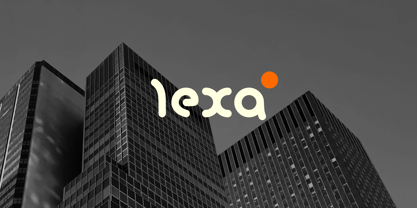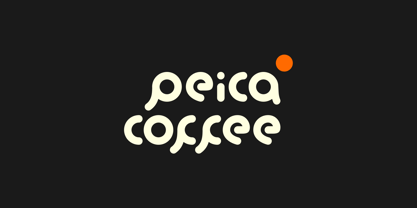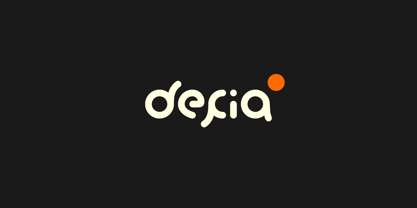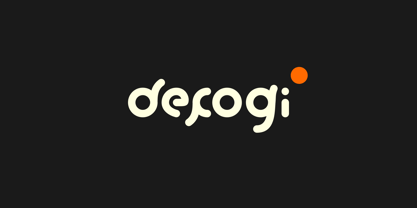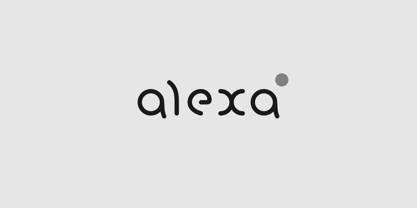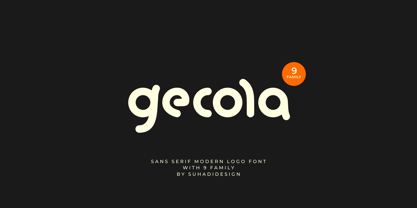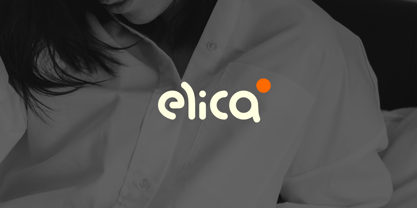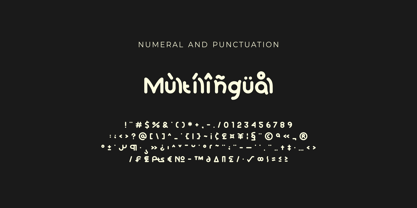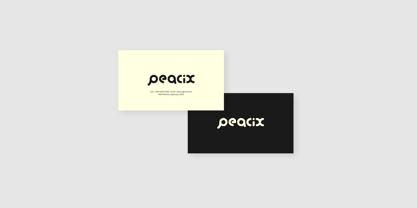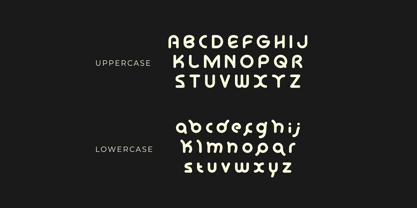
Gecola
The Gecola Font Family was designed by ahmad suhadi and published by suhadidesign. Gecola contains 9 styles and family package options.
Gecola - Logo Font
Following market demand, I created a minimalist sans serif font that's modern, elegant, and cool. Therefore, I decided to create this sans serif font. Gecola is a cool font for millennials and genz, presented with a modern style that's become a market favorite. We've kept this font looking cool, classy, ​​modern, stylish, up-to-date, and easy to use. Gecola is the perfect choice for logos, brands, companies, startups, labels, fashion, branding, brand names, and other projects. Gecola is here to take your designs to the next level.
Font Features:
• Uppercase Letters • Lowercase Letters • 9 Families • Multilingual Support • Numbers and Punctuation